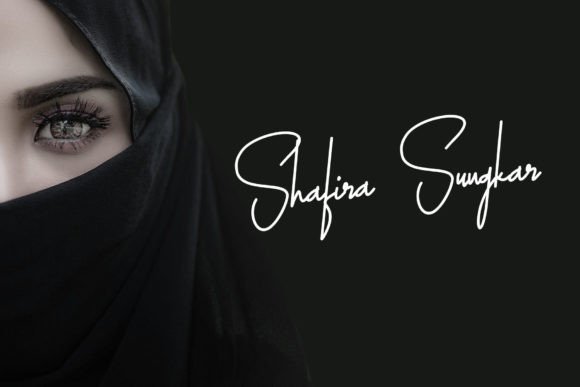
The Aalbasta Font: A Dazzling Script to Elevate Your Designs
I’ll never forget the time I was working on a project for a client who wanted a elegant, yet playful script font to brand their new product line. I spent hours scouring the internet for the perfect font, but nothing seemed quite right. That was until I stumbled upon Aalbasta. This stunning script font has been a game-changer for my design work, and I’m excited to share it with you.
An Honest Review of Aalbasta
Aalbasta is a beautifully crafted script font that has won my heart. Here’s what I love about it:
- ✨ Highly detailed and neatly crafted design
- ✅ Versatile and suitable for a wide range of topics and projects
- 💫 Elegant and sophisticated, yet playful and fun
- 📚 Extensive character set and OpenType features
Of course, no font is perfect, and Aalbasta does have a few quirks:
- 🤔 Some users may find the font a bit too ornate for certain projects
- ⚠️ Limited availability of certain characters and glyphs
The Story Behind Aalbasta
Aalbasta was designed by a talented type designer who wanted to create a font that would evoke the elegance and sophistication of traditional calligraphy. The designer spent countless hours perfecting the font’s intricate details and ensuring that it would be versatile enough for a wide range of projects. Today, Aalbasta is a beloved font among designers and crafters, and its popularity continues to grow.
| Font Name | Aalbasta Font |
| Author | Nest Studio |
| What is Aalbasta? | Aalbasta is a script font designed for creative and artistic projects. |